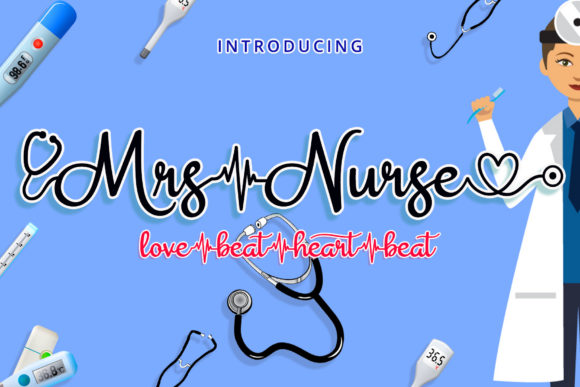
Looking for the perfect font to express your emotions? Look no further than Mrs Nurse Font, the best font for love letters and heartfelt sentiments.
Crafted by the expert designers at Airotype, Mrs Nurse Font is a stunning script font with a modern twist. With its elegant handwritten style, this font adds a touch of sophistication to any project.
But Mrs Nurse Font isn't just pretty to look at – it's also incredibly versatile. Whether you're creating branding materials, wedding invitations, or logos, Mrs Nurse Font will elevate your designs to new heights.
So why choose Mrs Nurse Font over other script fonts on the market? First and foremost, its unique style is sure to make your designs stand out from the crowd. But beyond its aesthetic appeal, Mrs Nurse Font is also incredibly easy to read, making it perfect for longer blocks of text.
And let's not forget about the emotional impact of Mrs Nurse Font. Its flowing lines and delicate curves evoke feelings of love, warmth, and tenderness, making it the perfect choice for any project that requires a touch of romance.
In short, if you're looking for a font that can help you express your emotions and take your designs to the next level, Mrs Nurse Font is the perfect choice. Try it out today and see the difference for yourself!